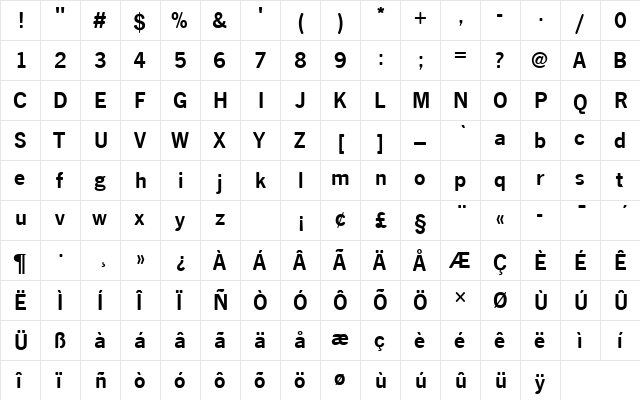
NewsGotTDemRo1 Regular
Design Context for NewsGotTDemRo1 Typeface
NewsGotTDemRo1 takes a measured approach to typography — its balanced proportions and neutral character make it a reliable workhorse for both digital and print work.